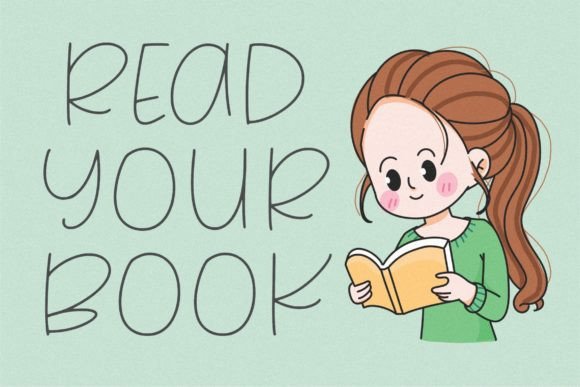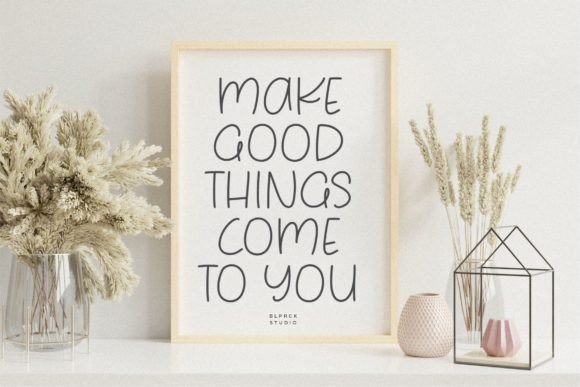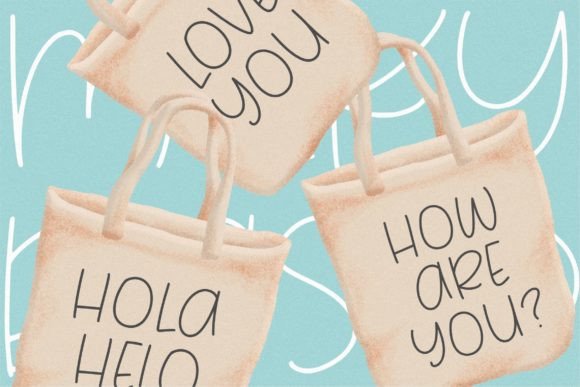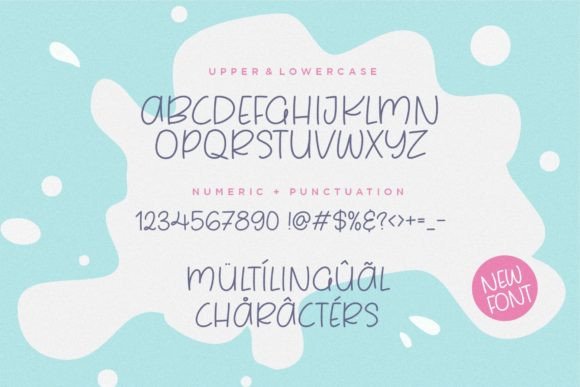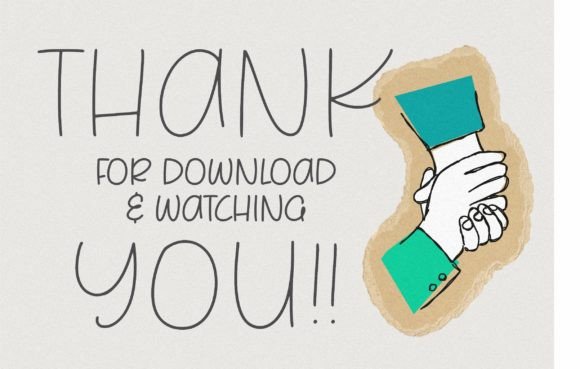
Introduction to Milky Based Font
Have you ever stared at a blank canvas, waiting for the perfect design to emerge? As a designer, you know that finding the right font can make all the difference between a great creative project and a mediocre one. That’s why we’re excited to introduce you to the Milky Based Font – a stunning monoline handwritten font that’s sure to elevate your designs to the next level.
With its smooth, effortless lines and understated sophistication, the Milky Based Font is the perfect choice for designers looking for a modern look that’s still timeless in its appeal. Whether you’re working on a logo, branding, invitation, or packaging project, this font is sure to make a lasting impression. Plus, with its simple yet refined aesthetic, it’s easy to see why the Milky Based Font is a valuable design resource for any creative project.
Key Features of Milky Based Font
- Unique, Milky Based Font style with a transparent background, perfect for creative projects.
- Available in a range of sizes, from 12px to 72px, to suit various design needs.
- High-resolution design, suitable for print and digital use, with a minimum resolution of 300 DPI.
- Easy to customize and manipulate, making it an ideal design resource for creative projects.
Honest Review: Milky Based Font
I recently had the chance to work with the Milky Based Font and I must say, it’s a delightful addition to any creative project. The font is a high-quality design resource that offers a unique, milky appearance that’s perfect for creating eye-catching graphics and designs.
- ✨ The transparent background of the font makes it super easy to use with any design or image, ensuring a seamless integration.
- ✨ The font’s versatility allows for a wide range of creative applications, from logos to typography-based designs.
- ⚠️ The font may not be suitable for all design projects, particularly those requiring a more traditional or formal look.
- ⚠️ Some users may find the milky effect to be too overpowering or distracting, depending on the design context.
Overall, I’m impressed with the Milky Based Font and its potential to elevate creative projects. While it may have its limitations, it’s a great addition to any designer’s toolkit, especially for those looking for a unique and high-quality design resource.
What is Milky Based Font?
Milky Based Font is a unique and creative design resource that features a transparent background, perfect for adding a touch of elegance to your projects. This high-quality font is available for free download and can be easily integrated into various design platforms.
Tips for Getting the Most Out of Milky Based Font
Experiment with different font sizes and colors to create a visually appealing effect. Use the transparent background to create a sense of depth and layering in your design. Combine Milky Based Font with other design elements to create a unique and eye-catching look.
Milky Based Font is perfect for creative projects such as branding, packaging design, and editorial design. It’s also great for adding a touch of sophistication to business presentations and documents.